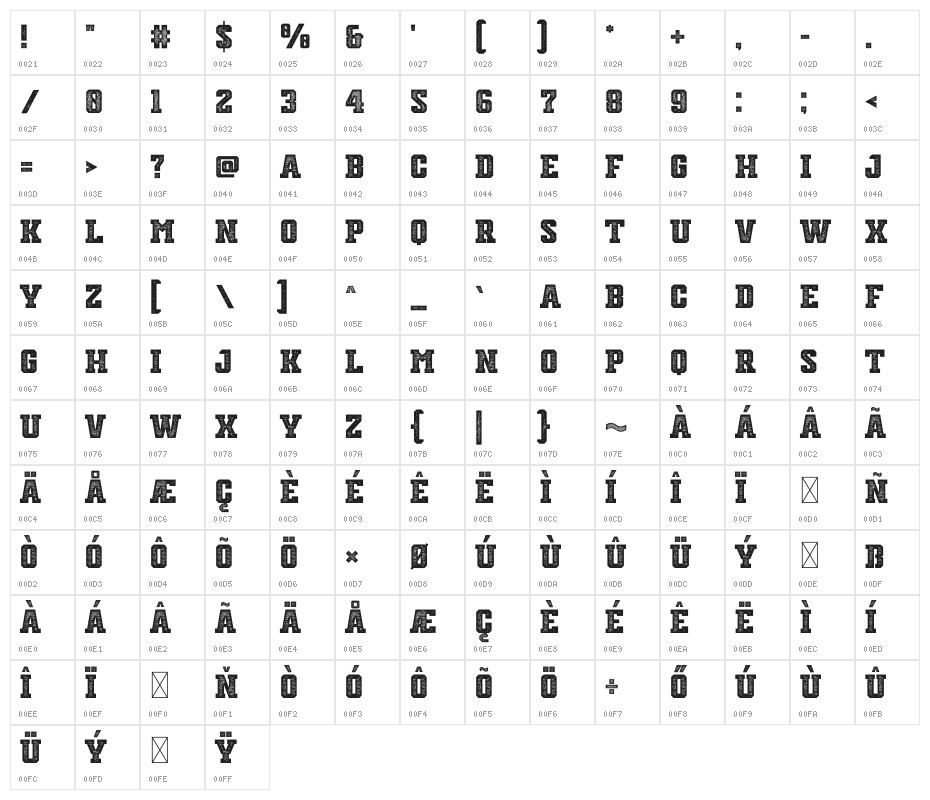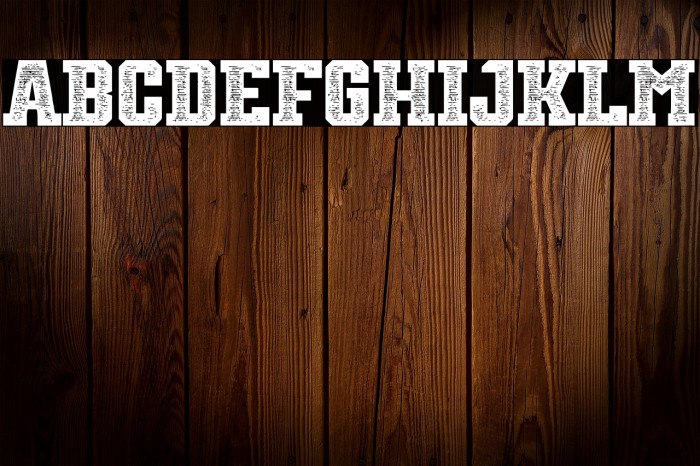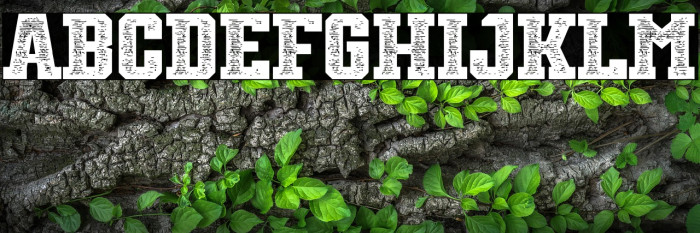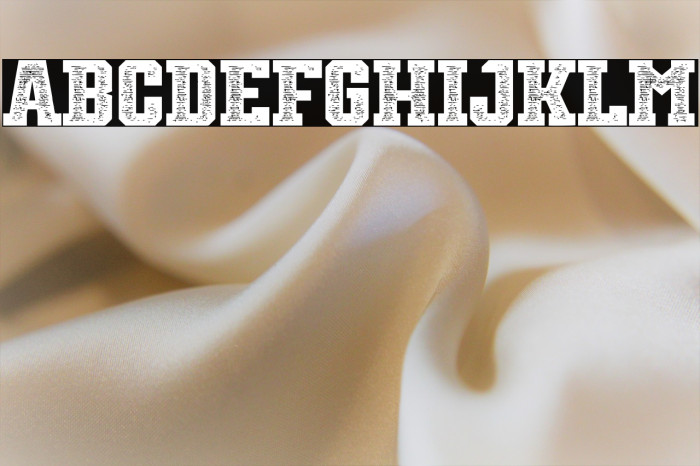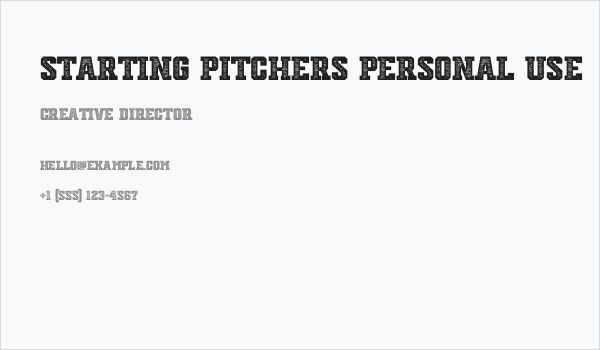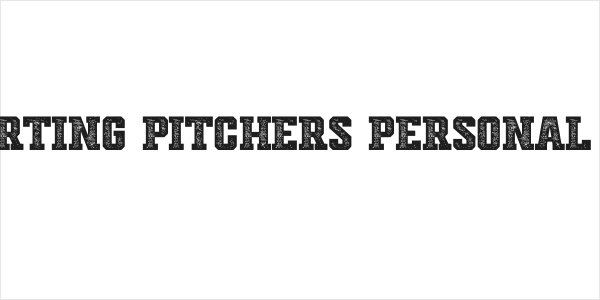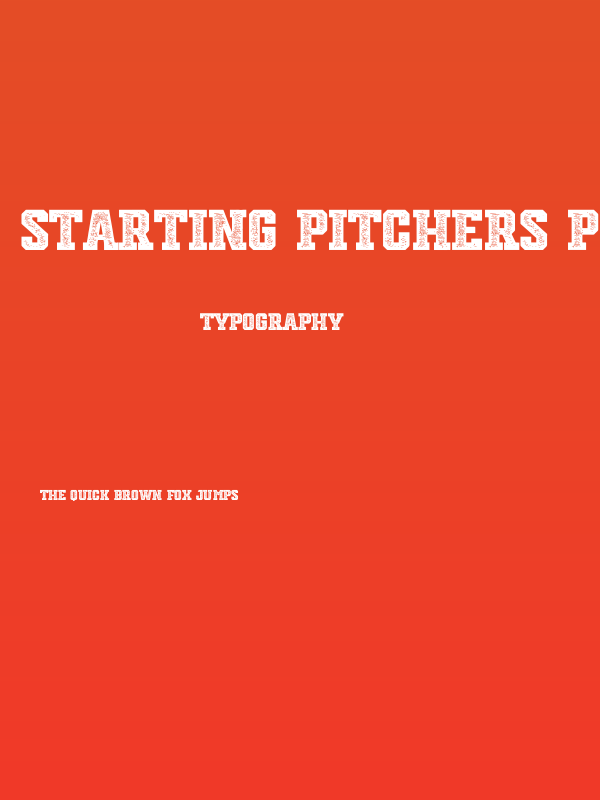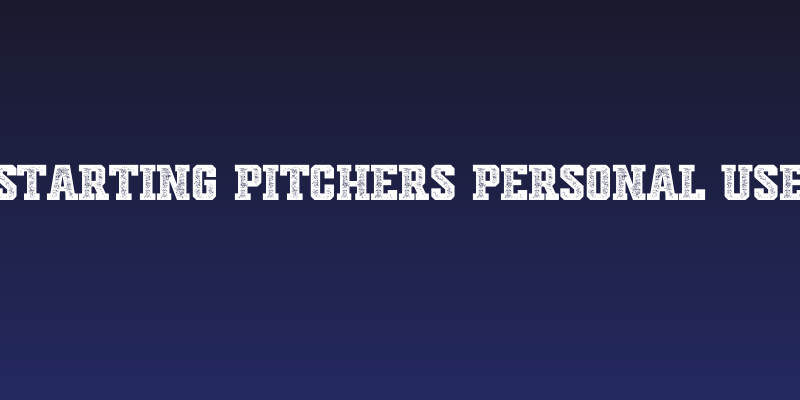
Starting Pitchers Personal Use Font
Starting Pitchers Personal Use Description
This font features a bold, textured design with a distressed, vintage appearance. The characters are blocky and robust, giving them a strong presence. The texture within each letter adds a rugged, worn look, reminiscent of old sports jerseys or vintage signage. The uppercase and lowercase letters maintain a consistent style, with the numbers and special characters following suit. This font's unique texture and boldness make it stand out, providing a sense of nostalgia and strength.